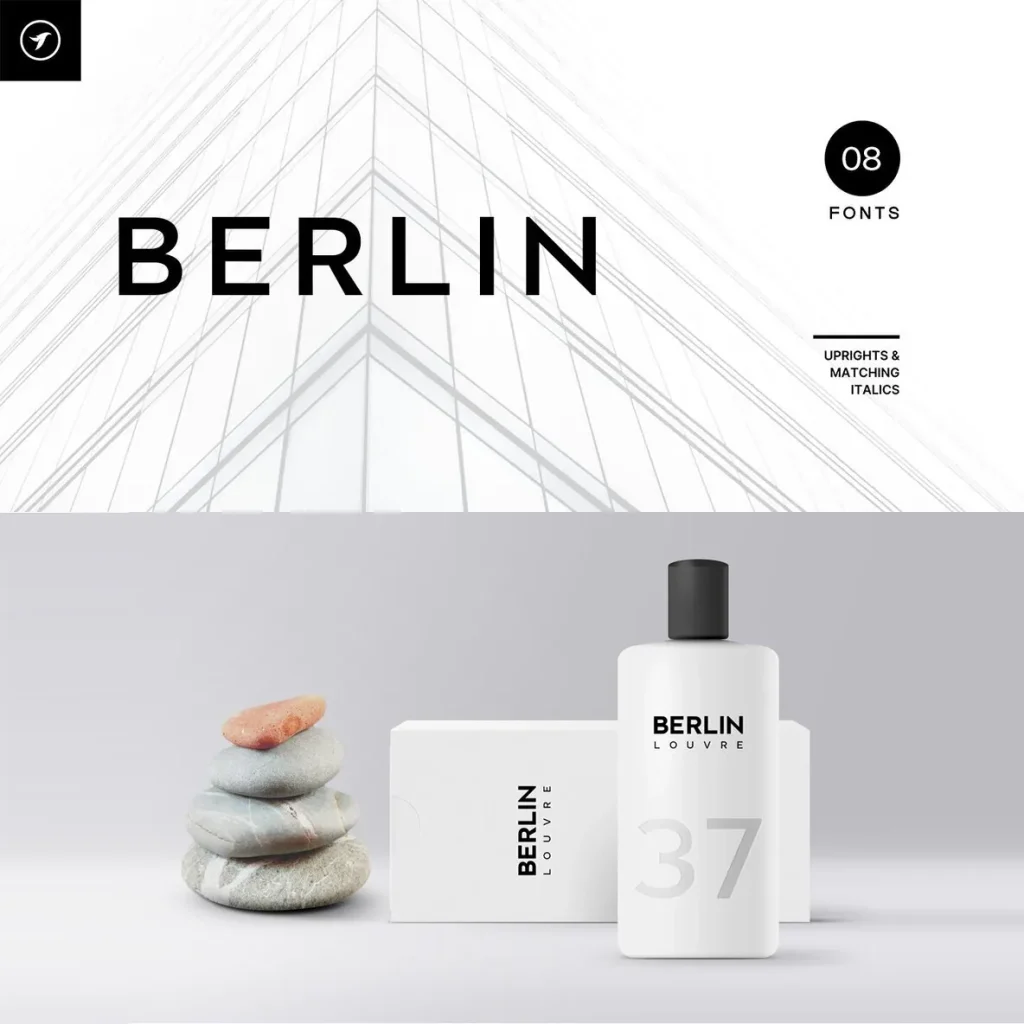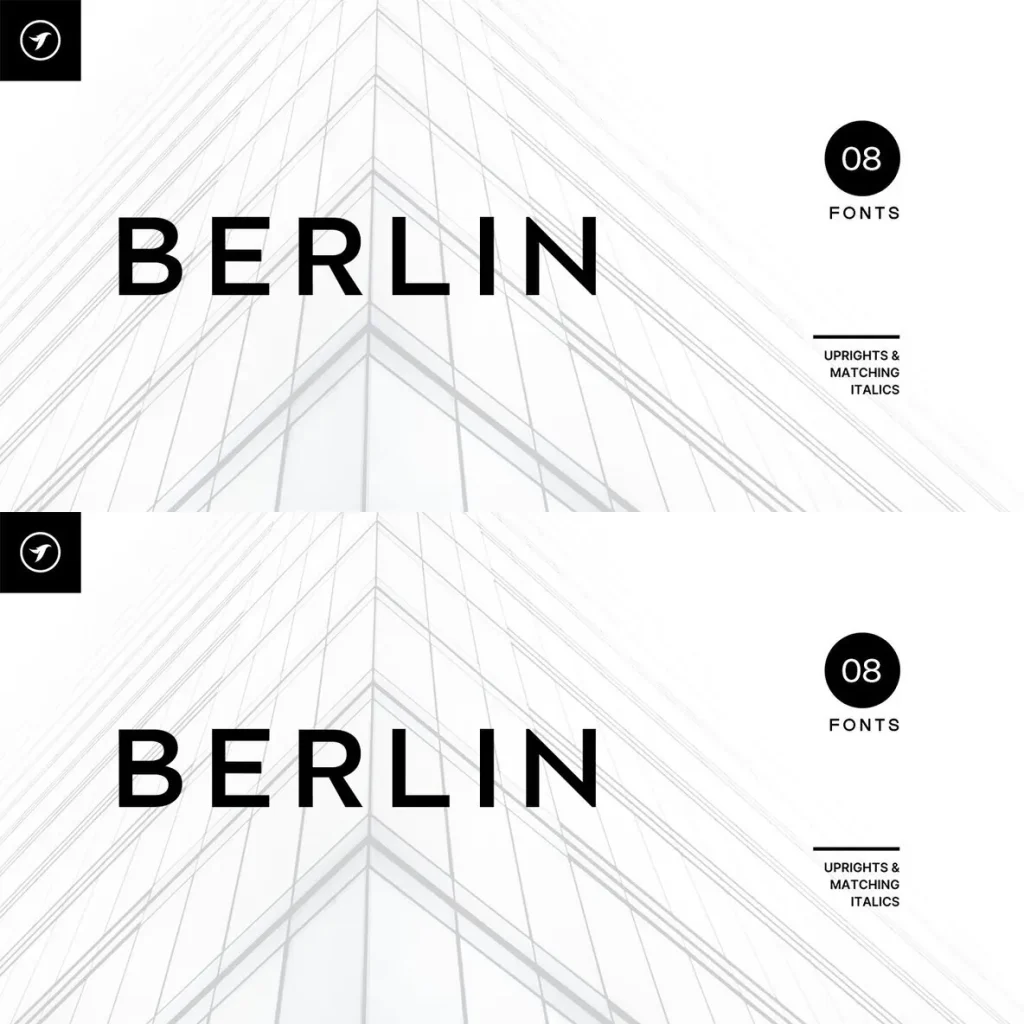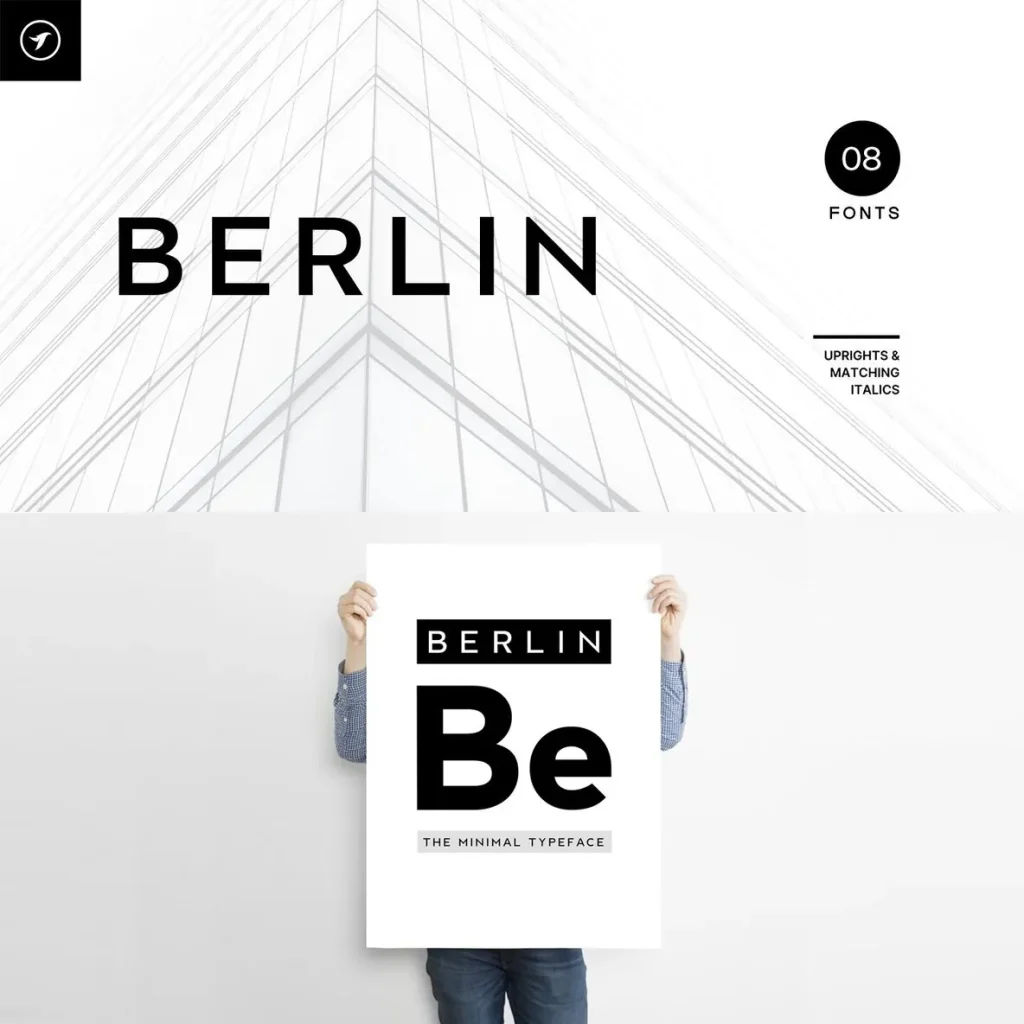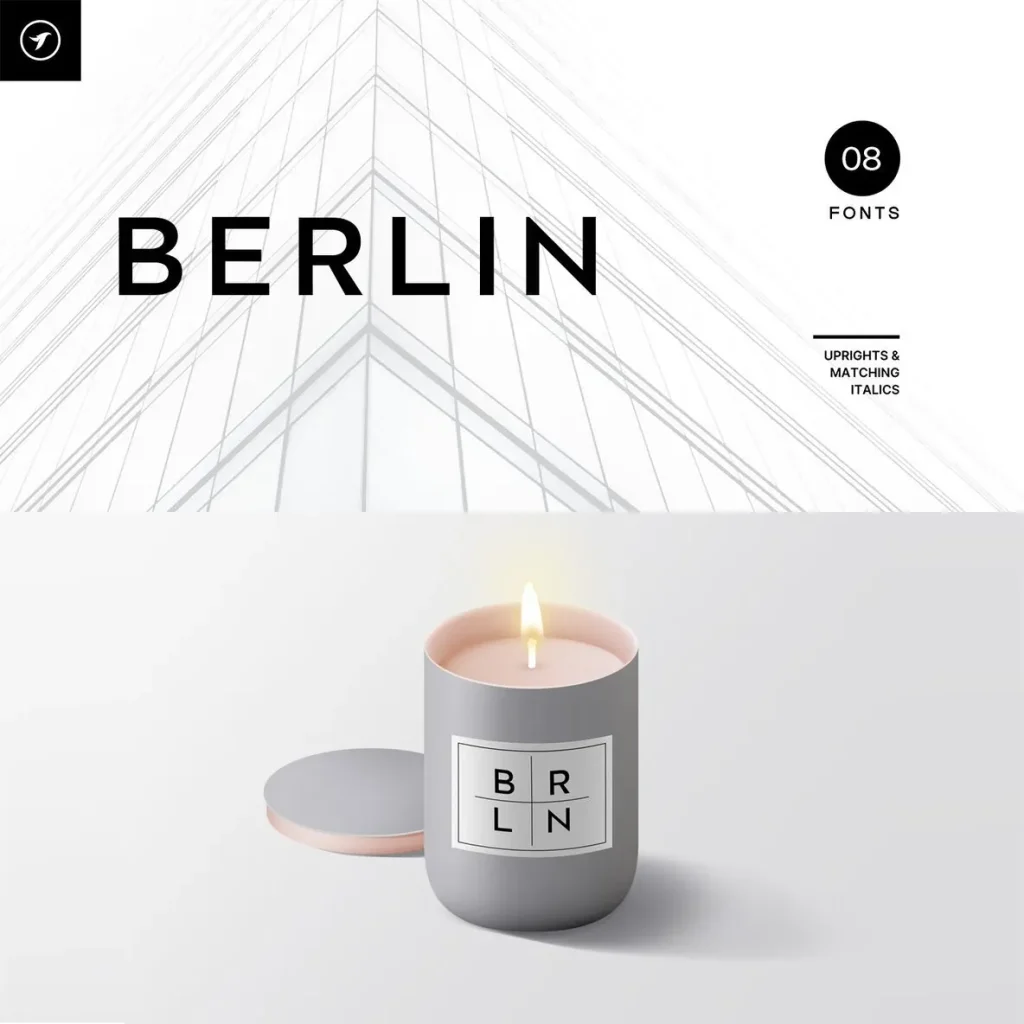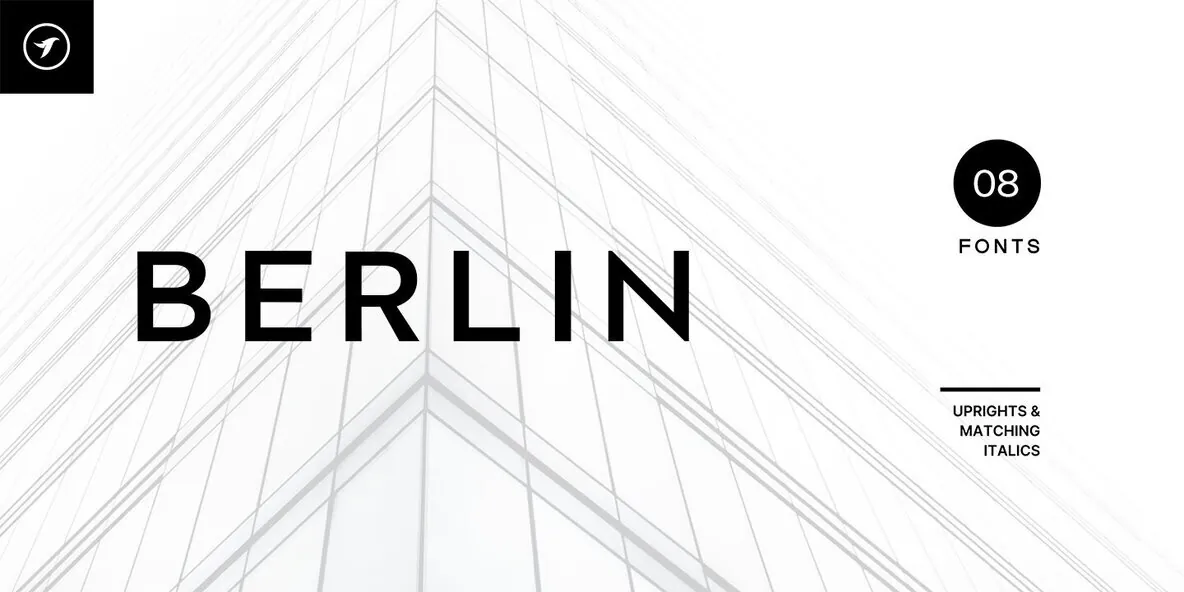
Berlin — Geometry With Quiet Authority
Berlin is a minimalist font family built on clean geometry, modern proportions, and timeless simplicity. Its carefully structured letterforms give the typeface a clear, composed voice while keeping it flexible across different visual systems.
Designed for work that needs precision without excess, Berlin brings order to professional typography. Its simple forms support legibility in print and digital settings, making it a reliable choice for identity, editorial, interface, packaging, and communication design.
Ideal Uses
Branding systems
Editorial layouts
Digital products
Corporate identities
Packaging
Professional communication